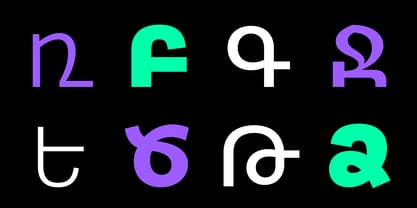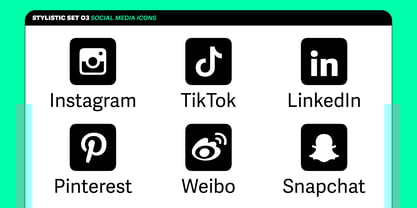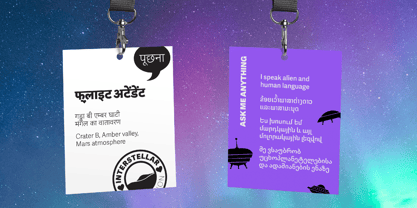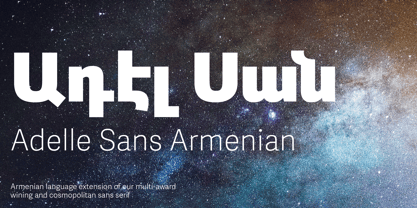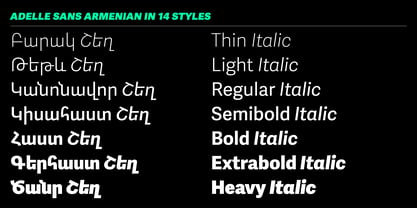
Adelle Sans Armenian
by TypeTogether
The Adelle Sans Armenian Font Family was designed by Veronika Burian, José Scaglione, Gor Jihanian and published by TypeTogether. Adelle Sans Armenian contains 14 styles and family package options. More about this family
Adelle Sans Armenian, the counterpart to the multi-award winning font family, provides a clean and spirited take on traditional, low contrast typefaces. As is typical with TypeTogether designs, the most demanding editorial problems were taken into consideration when creating the Armenian script extension. The combination of lively character and unobtrusive appearance inherent to grotesque sans serifs make Adelle Sans Armenian an utterly versatile tool for every imaginable situation. Whether for branding, signage, text, or advertising, the key concept behind the entire Adelle Sans family is multiscript flexibility.
Adelle Sans Armenian is available in 14 total styles (upright and italic) and includes the matching Latin styles in the same file. Each of the 14 styles is a perfect counterpart in terms of weight and vertical proportions to each other, allowing the user to set all forms of texts, from headlines that are strong or refined to subdued paragraphs that allow the message to shine through. This ensures an harmonious fit between both type families in the same block of text and a pitch perfect voice able to speak to multiple people groups.
Adelle Sans Armenian is a focused extension of the overall family that ensures coherence among all scripts. Rooted in the belief that broad language support is crucial to modern type design, the updated Armenian by Gor Jihanian is yet another push in TypeTogether’s ongoing multilingual efforts. The naturally clean and spirited shapes of Adelle Sans lend themselves to a graceful translation of the rather architectural structure of the Armenian script. Careful research and close collaboration yielded typographic consistency, legibility, and cultural awareness within both the Latin and Armenian scripts, as well as filling the need for quality Armenian editorial typefaces.
Across the entire Adelle Sans multiscript family — Arabic, Armenian, Chinese, Cyrillic, Devanagari, Georgian, Greek, Hebrew, Lao, Latin, Latin Extended, Thai, and more on the way — each has been engineered to optically match the tone, proportions, and readability of its counterparts. Its massive character set, large choice of modern icons, and support for over 400 languages in total means that your words, and your reach, are practically unlimited. Adelle Sans Armenian’s exhaustive character set and OpenType support delivers consistent, flexible, and personable results in digital and printed multilingual documents and multicultural branding to bring your world closer together.
Veronika Burian and José Scaglionemet and developed a respectful kinship while completing their Master’s degrees in type design at University of Reading, UK. Established in 2006, TypeTogether is an independent, cosmopolitan type foundry that creates text typography for intensive digital and print editorial use. We have grown into a core team living worldwide and invested in the daily work, networked with other type designers who intermittently cooperate on specific projects. Through our unique, diverse, curated font platform, TypeTogether creates innovative and stylish solutions to the greatest problems in the professional typography market. The advantage of being a small but highly specialized company is that we are able to work closely with our clients to accomplish their goals and to respond quickly to their requirements. To carry an organisation’s unique voice across all communications, TypeTogether creates custom type solutions for discerning clients worldwide. Distinct advantages in your market can be gained through logotype creation, commissioning a brand new typeface, modifying existing typefaces, or extending language support. TypeTogether creates cross-platform OpenType fonts of recognised aesthetic and technical excellence and which perform well in continuous reading. Our internationally awarded catalogue — honoured for its high quality, usefulness, personality, and ability to grab attention — spans many languages and scripts and is diligently expanding each year.